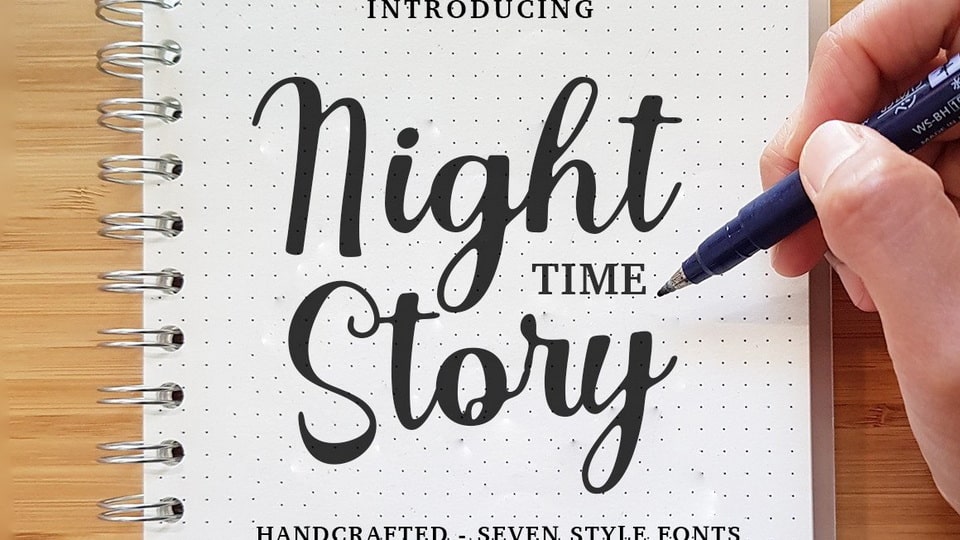
Download Night Time Story font, a modern script typeface with an authentic touch. This font is perfectly made for invitations, labels, logos, magazines, books, greeting/wedding cards, packaging, or any type of advertising.